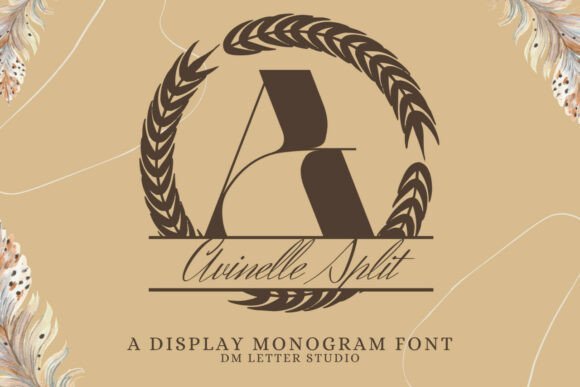
A Perfect Monogram: Elevate Your Designs with Avinelle Split Monogram Font
Do you remember the moment when you first saw your loved one’s monogram on a beautiful piece of stationery or a delicate charm? It’s a feeling that never fades – a mix of elegance, thoughtfulness, and personal touch. As a designer, you’ve probably encountered the challenge of creating visually appealing monograms that add a special something to your projects.
Enter Avinelle Split Monogram Font, a game-changing tool that turns initials into stunning nameplates in seconds. This elegant font features a crisp center split, allowing you to add names, dates, or short words, while maintaining a balanced and polished look. With Avinelle Split Monogram Font, you can create beautiful wedding gifts, family signs, door hangers, and more – all with minimal effort.
Avinelle Split Monogram Font Key Features
- Font Family: Avinelle Split Monogram Font
- Unique Characteristics: Unique split monogram design, perfect for personalizing gifts, stationery, and other creative projects
Avinelle Split Monogram Font Review
I recently had the chance to work with the Avinelle Split Monogram Font, and I’m excited to share my honest review with you. ✨ The first thing I noticed was how beautifully elegant this font is. It’s perfect for adding a touch of sophistication to your designs, whether it’s a wedding invitation, a logo, or even a social media graphic.
- ✨ Elegant and sophisticated look: The Avinelle Split Monogram Font is perfect for adding a touch of class to your designs.
- ✨ Versatile: This font can be used for a variety of projects, from wedding invitations to logos and social media graphics.
- ✨ Easy to read: The font is clear and easy to read, making it perfect for text-heavy designs.
However, I did encounter a few limitations:
- ⚠️ Limited character set: The font only includes uppercase and lowercase letters, numbers, and some special characters. If you need to use non-English characters, you may need to look elsewhere.
- ⚠️ Not ideal for body text: While the font is perfect for headings and titles, it may not be the best choice for body text due to its elegance and sophistication.
Overall, I’m really impressed with the Avinelle Split Monogram Font. It’s a beautiful, elegant font that’s perfect for adding a touch of sophistication to your designs. While it may have a few limitations, I think it’s well worth the investment for designers who need a high-quality, versatile font.